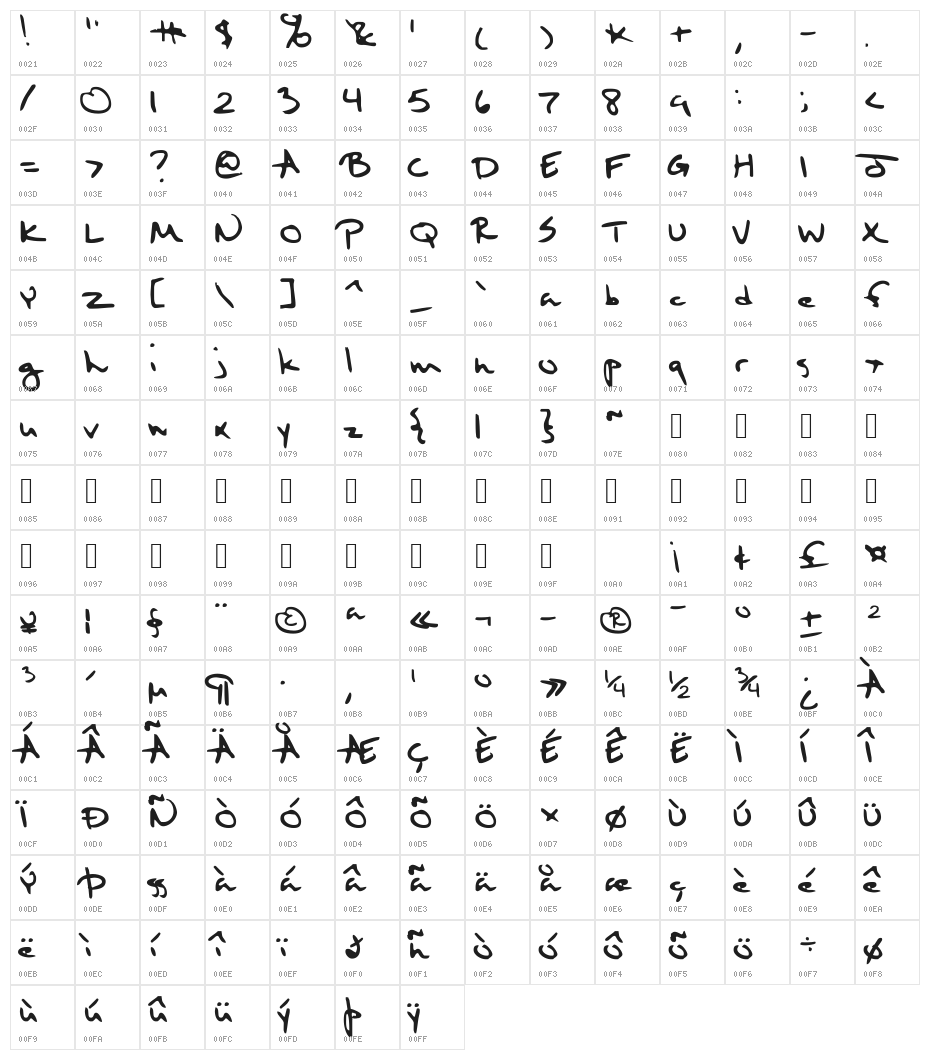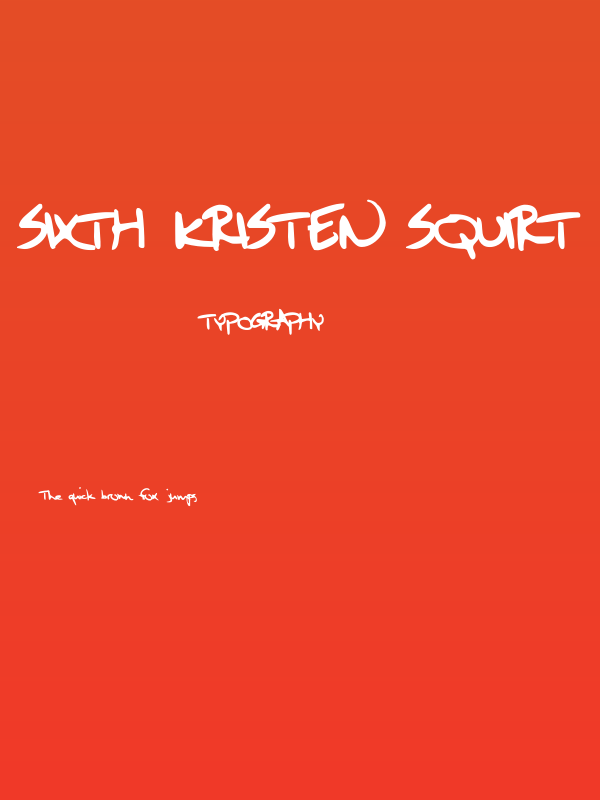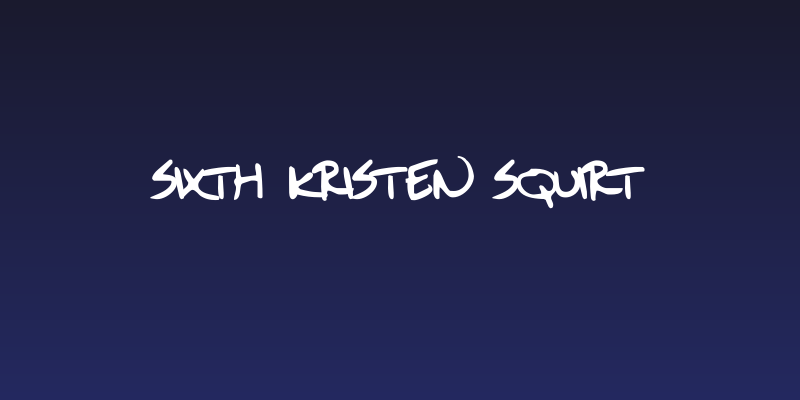
Sixth Kristen Squirt Font
Sixth Kristen Squirt Description
This font exhibits a playful and dynamic handwritten style, characterized by its bold and expressive strokes. The letters are crafted with a casual flair, giving off a sense of spontaneity and creativity. The uppercase and lowercase letters maintain a consistent flow, while the numbers and special characters integrate seamlessly with the overall design. The font's energetic appearance makes it stand out, offering a unique aesthetic that is both informal and artistic. Its boldness ensures visibility and impact, making it suitable for projects that require a personal touch.
Proposed ProjectsIdeal for greeting cards, children's books, creative posters, and personal branding projects.